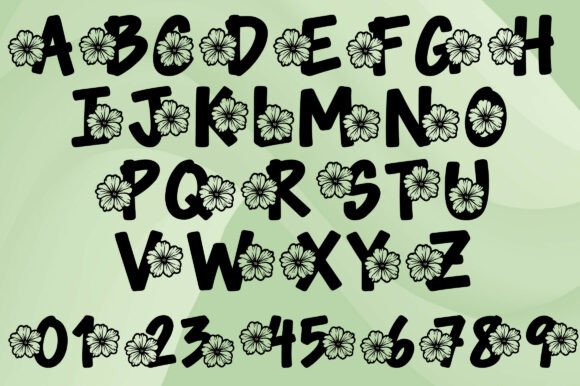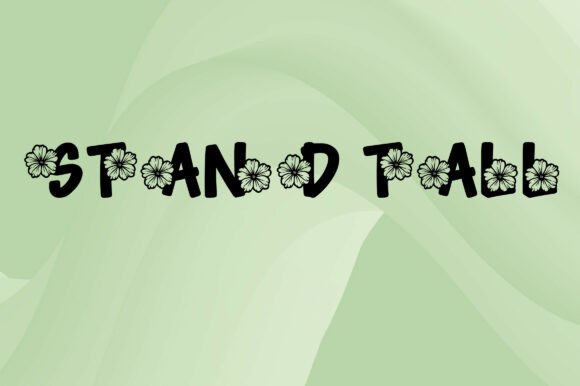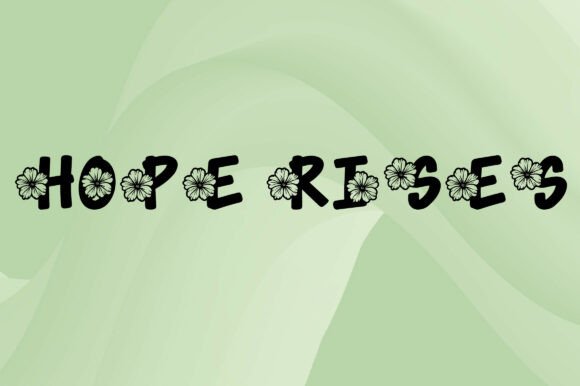
Introducing Dada Font: The Ultimate Decorative Typeface for Creative Projects
Are you a designer, craftsperson, or DIY enthusiast looking for a unique and creative font to elevate your projects? Look no further than Dada Font, a decorative typeface that is perfect for logos, posters, branding, packaging, social media graphics, and more. With its charming and stylish character, Dada Font is sure to add a touch of fun and personality to any project.
What is Dada Font?
Dada Font is a decorative typeface that features uppercase English letters A-Z and numbers 0-9. This font is carefully crafted to provide a unique and creative look that is perfect for a wide range of projects. Whether you’re looking to create a logo, poster, or social media graphic, Dada Font is the perfect choice.
Key Features of Dada Font
• Unique and Creative Design: Dada Font features a one-of-a-kind design that is sure to make your projects stand out.
• Uppercase English Letters and Numbers: This font includes uppercase English letters A-Z and numbers 0-9, making it perfect for a wide range of projects.
• Perfect for Logos, Posters, and More: Dada Font is ideal for logos, posters, branding, packaging, social media graphics, and more.
Benefits of Using Dada Font
There are many benefits to using Dada Font in your projects. Here are just a few:
• Adds Charm and Character: Dada Font adds a touch of charm and character to any project, making it perfect for designers and crafters who want to create unique and eye-catching designs.
• Perfect for Branding and Marketing: Dada Font is ideal for branding and marketing projects, as it provides a unique and creative look that is sure to grab attention.
• Versatile: Dada Font can be used in a wide range of projects, from logos and posters to social media graphics and packaging.
Tips and Tricks for Using Dada Font
Here are a few tips and tricks for using Dada Font:
• Experiment with Different Sizes and Colors: Experiment with different sizes and colors to find the perfect look for your project.
• Use it with Other Fonts: Dada Font can be paired with other fonts to create a unique and creative look.
• Make it Your Own: Don’t be afraid to get creative and make Dada Font your own by adding your own personal touches.
Author MOMAT THIRTYONE
Dada Font is a unique and creative typeface that is perfect for designers, crafters, and DIY enthusiasts. With its charming and stylish character, Dada Font is sure to add a touch of fun and personality to any project. Whether you’re looking to create a logo, poster, or social media graphic, Dada Font is the perfect choice. So why wait? Download Dada Font today and start creating!